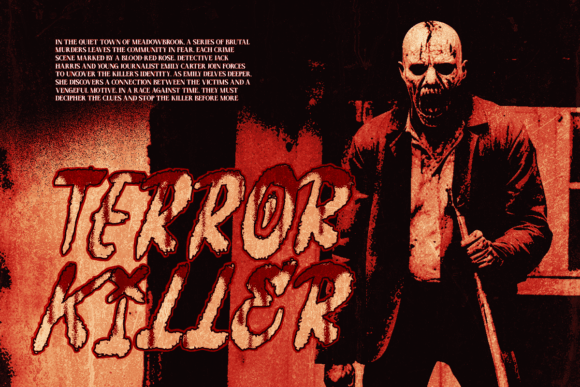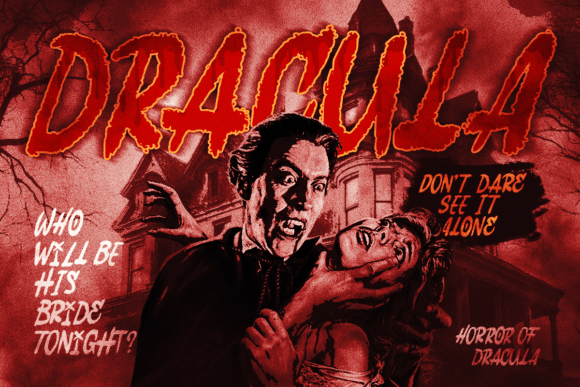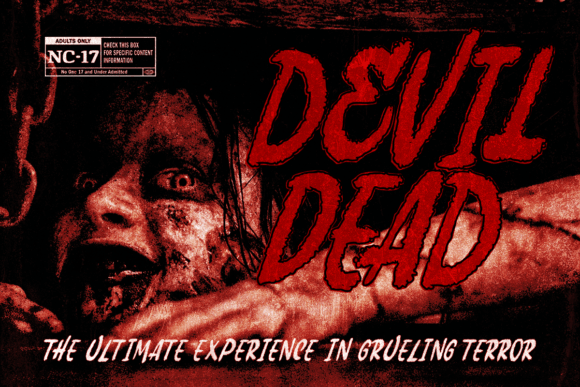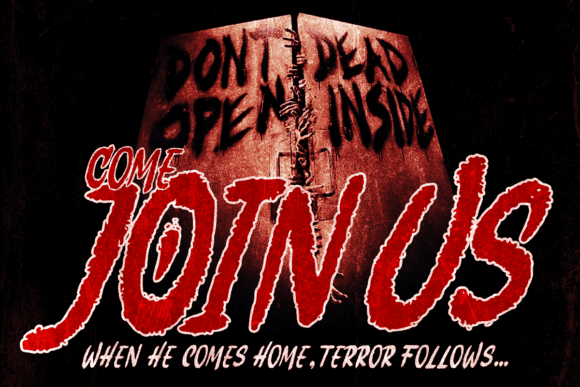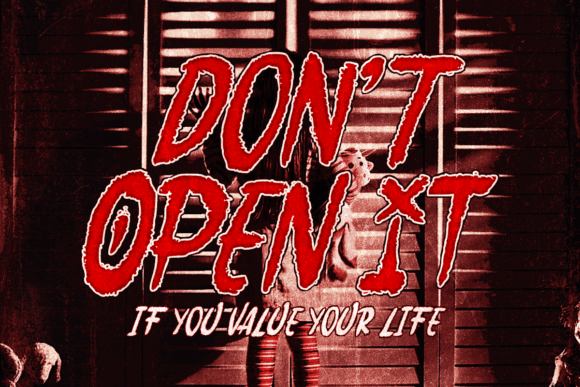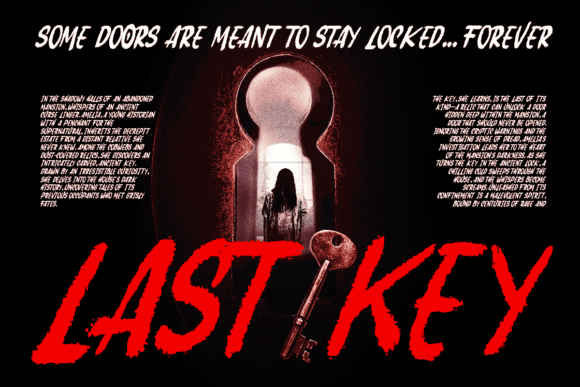
Introduction to Hellstone Font
Do you remember that moment when you stumbled upon the perfect design resource for your creative project? The one that instantly elevates your concept and sets it apart from the rest? For designers, finding that elusive gem can be a game-changer. And for those who dare to venture into the realm of horror, I’m excited to introduce you to the Hellstone Font – a handmade horror font that’s sure to send shivers down your spine.
Imagine having a font that embodies the essence of fear and dread, perfect for your next Halloween project or a thriller movie poster that demands a creepy atmosphere. The Hellstone Font delivers a powerful, solid brush style that’s both haunting and captivating. With its unique lowercase and uppercase characters, this font allows for creative combinations, giving your designs an authentic, handwritten feel.
Key Features of Hellstone Font
- High-quality, professional font design perfect for creative projects, including game development, graphic design, and publishing.
- Includes a transparent background, allowing for seamless integration into various design environments.
- Designed with a unique, gothic-inspired aesthetic, Hellstone Font is ideal for projects that require a dark, mysterious atmosphere.
Honest Review: Hellstone Font
I recently came across the Hellstone Font, a free download that caught my attention as a design resource for a creative project. At first glance, the font’s edgy and bold style seemed perfect for a high-quality design.
- High-quality design that’s perfect for creative projects.
- ⚠️ Limited customization options, which might not be ideal for designers who prefer a more tailored look.
- ⚠️ Not suitable for text-heavy designs, as the font’s bold style can be overwhelming.
Overall, I was impressed with the Hellstone Font’s design and versatility. While it may have some limitations, it’s a great choice for designers looking for a high-quality, free download for their creative projects. With a bit of creativity and experimentation, the Hellstone Font can be a valuable addition to any design arsenal.
Tips for Getting the Most Out of Hellstone Font
Use the Hellstone Font with a transparent background to add a touch of elegance to your designs. You can also use it in combination with other design resources to create a unique and creative project.
The Hellstone Font is perfect for a wide range of creative projects, from social media graphics to presentations. You can use it for branding, marketing materials, or any other project that requires a high-quality font with a unique touch.
Alternatives to Hellstone Font